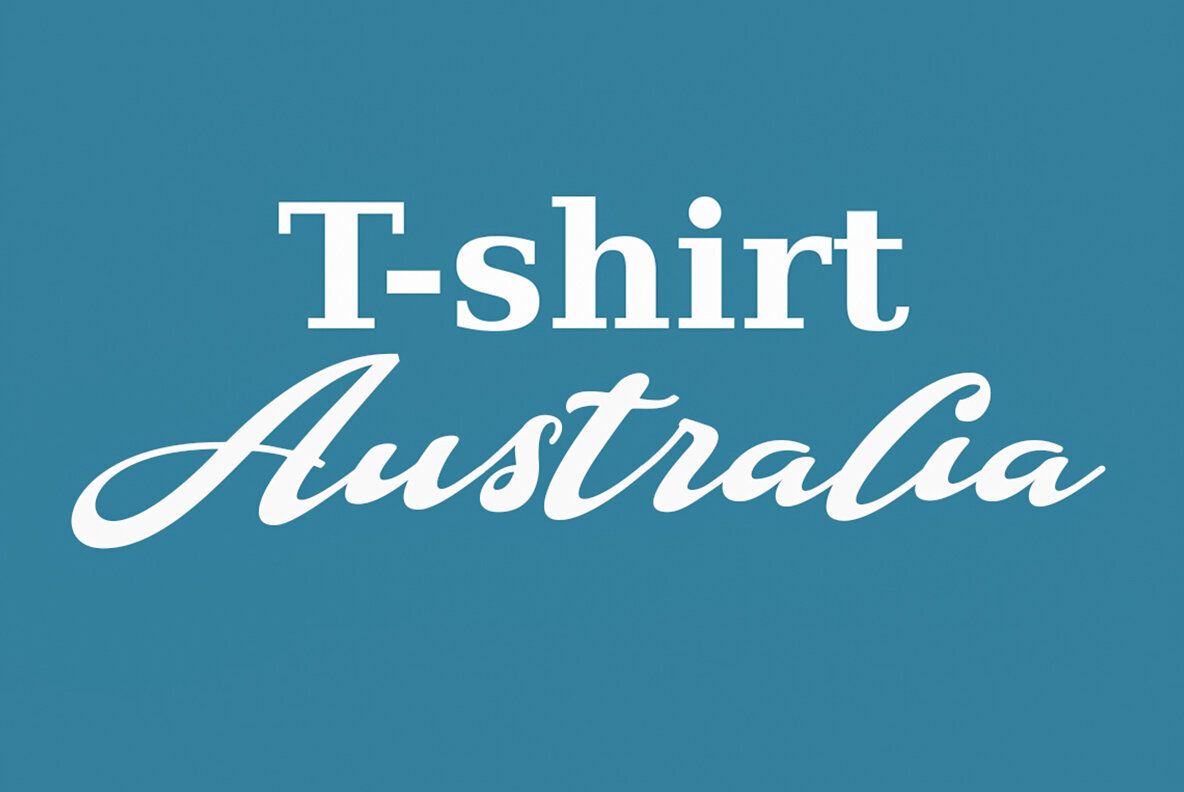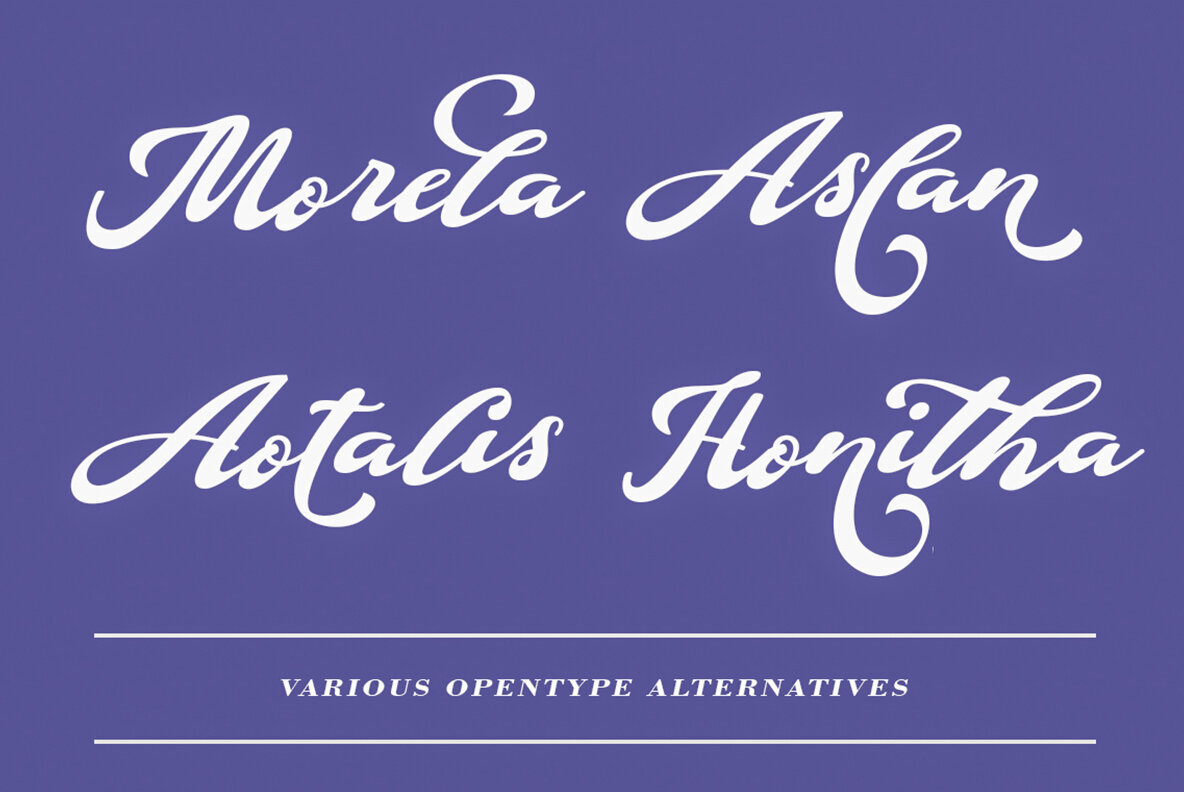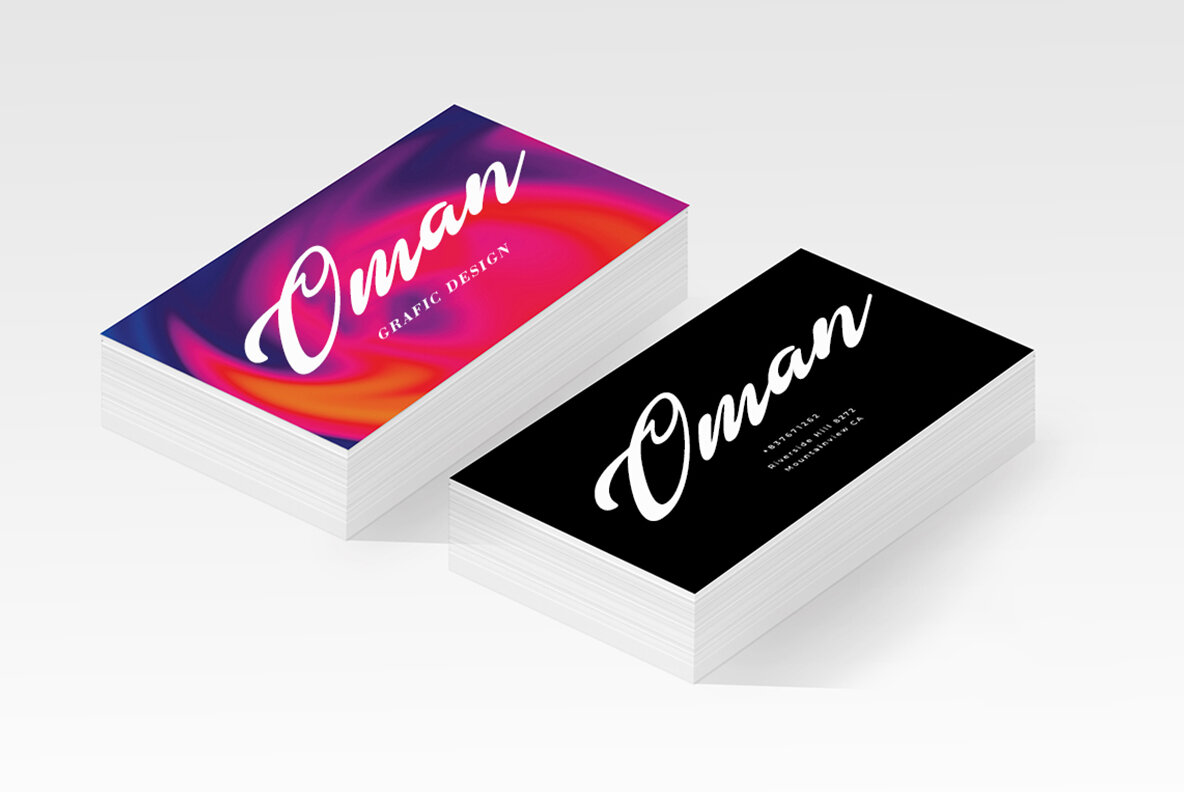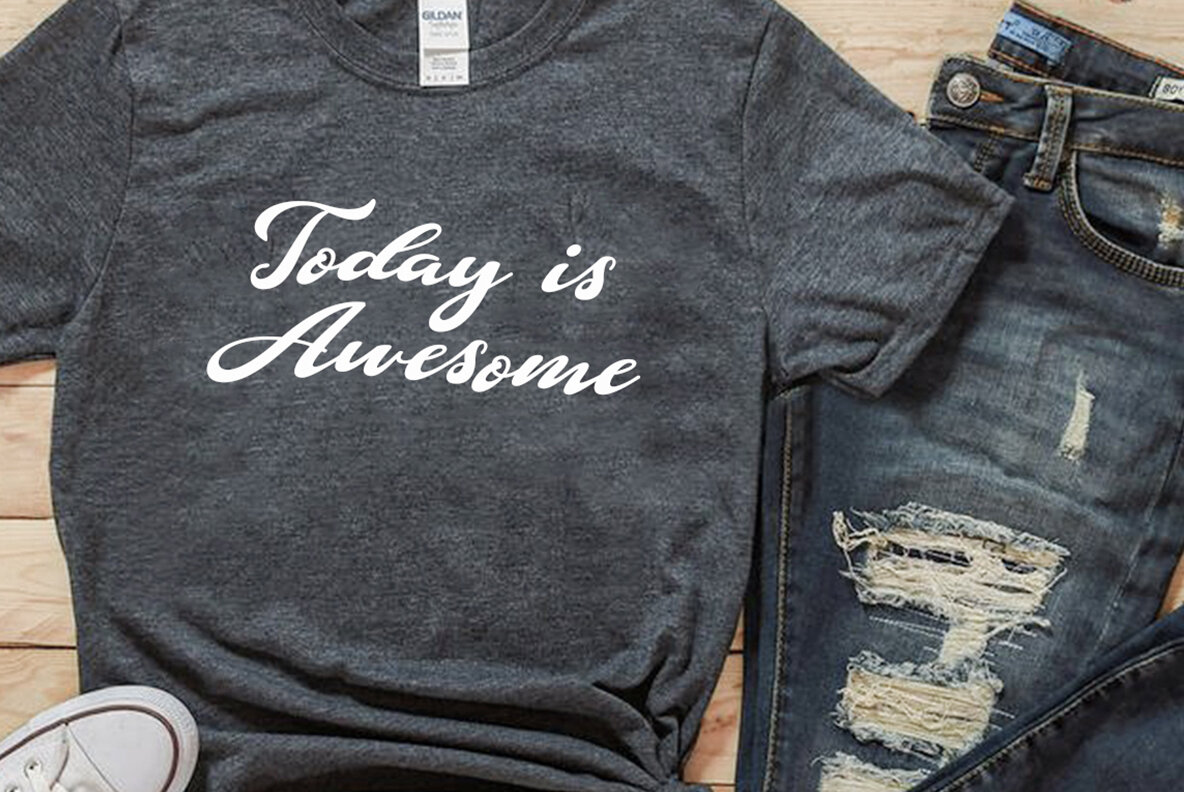
Mogetson Font
Mogetson Regular
Mogetson is a cursive script font that features bold contrasting strokes and a playful character. Its design includes binder elements and alternatives that enhance creative possibilities. This font is versatile, making it suitable for logo designs, social media content, movie titles, book titles, short and long text, and complements sans or serif fonts effectively.Mogetson: Cursive Script Font with Bold Contrasts
Font Characteristics and Features